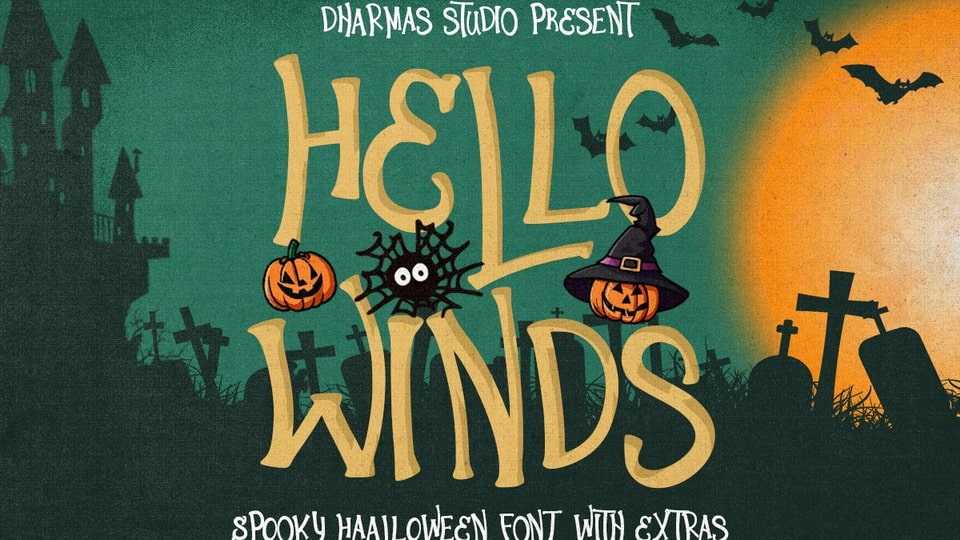
Download Hello Winds font, a hand crafted typeface that’s ready to cast a spooky spell on your designs. This eerie display font is the perfect choice for all your Halloween-related projects.